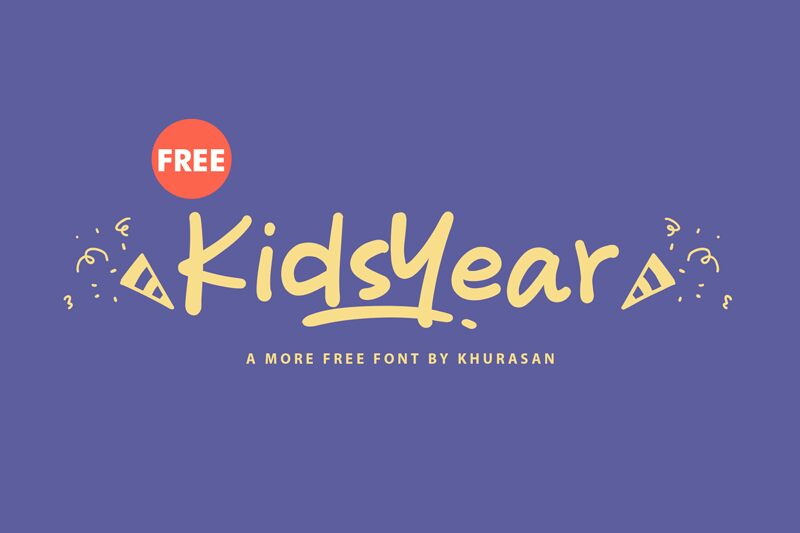
Kids Year
Kids Year, designed by Khurasan, embodies the carefree spirit and creativity of childhood in its handwritten style. This semi-expanded font dances with a whimsical charm, inviting viewers into a world crafted by an imaginative mind. Its playful curves and slightly irregular forms suggest the uninhibited joy of a child's doodle, making it perfect for projects that aim to strike a chord with both the young and the young-at-heart.
With an aesthetic that is both friendly and approachable, Kids Year shines in contexts where a personal touch is desired. Whether it's for branding materials, invitations to kid-themed events, or engaging educational resources, this font adds a delightful personality to any visual communication.
Kids Year's legibility remains intact despite its informal appearance, ensuring that messages are not only seen but also felt. Its semi-expanded width provides ample breathing room between characters for easy reading while maintaining an intimate vibe.
In summary, Kids Year offers designers an enchanting blend of playfulness and practicality—ideal for infusing designs with warmth and whimsy without sacrificing clarity.